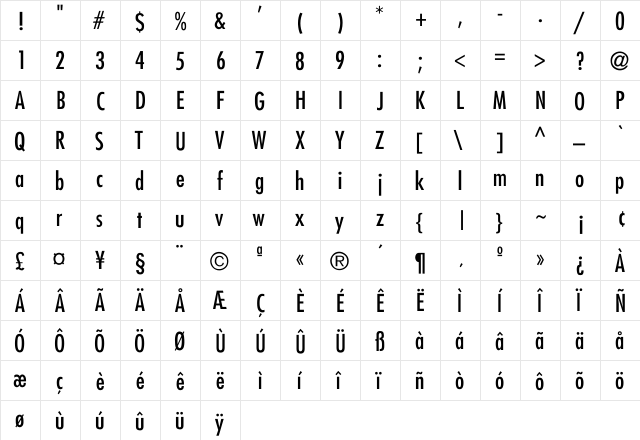
Belmar-Condensed-Normal Regular
Design Context for Belmar-Condensed-Normal Typeface
Belmar-Condensed-Normal offers clean, dependable letterforms without strong stylistic allegiance, making it a practical choice for designers who need flexibility. The condensed width makes it efficient for tight spaces without sacrificing legibility.